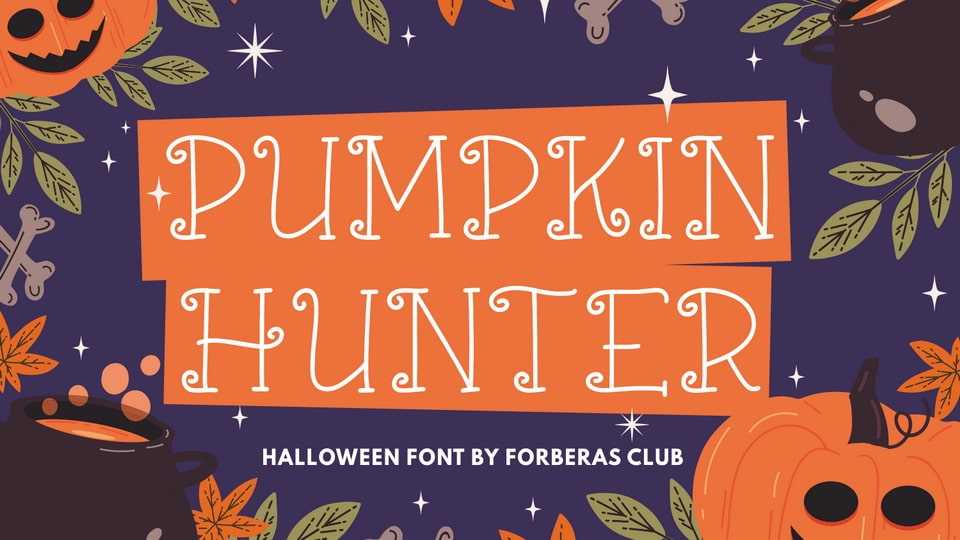
Download Pumpkin Hunter font, a fun and spooky display typeface. With its scary and whimsical vibe, this font is suitable for all your Halloween or horror-themed projects.